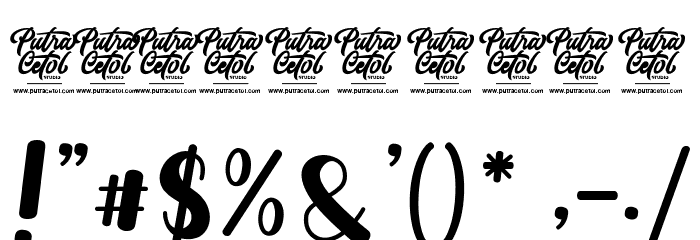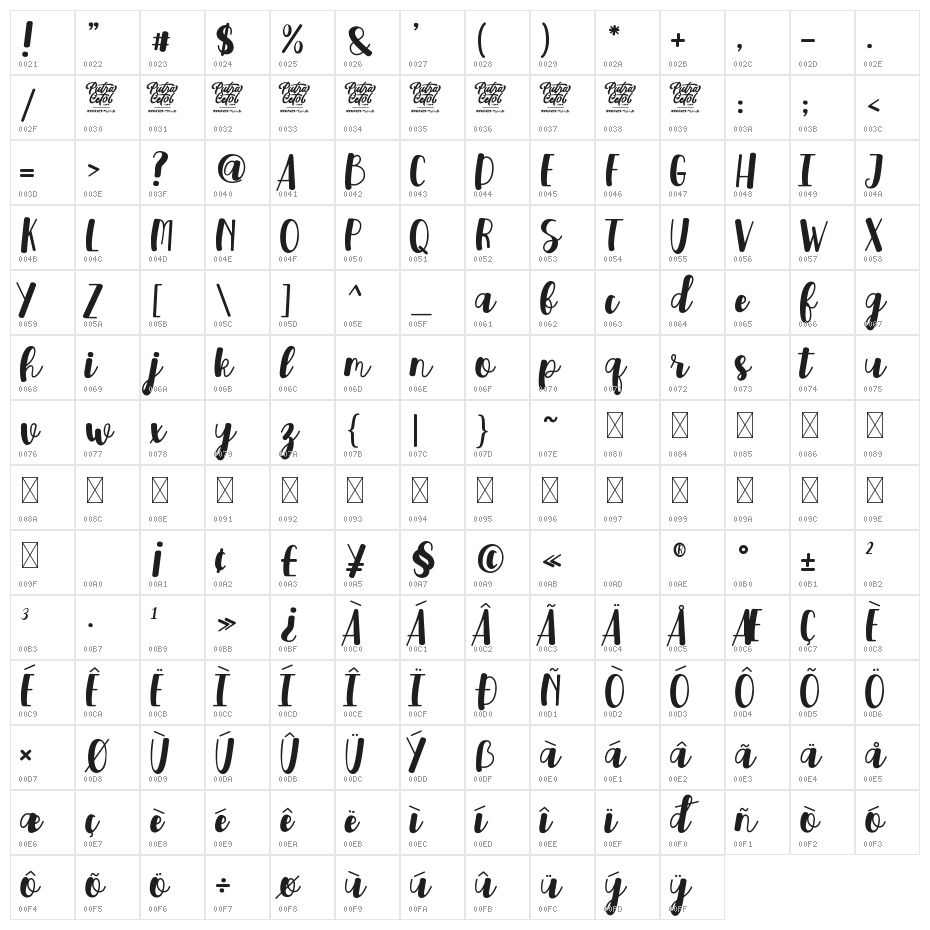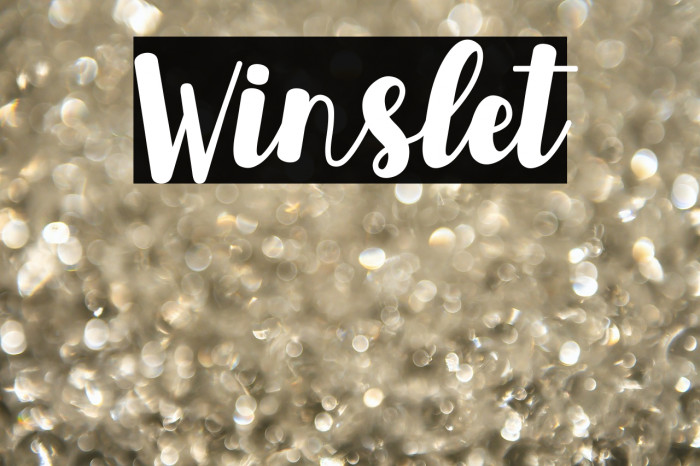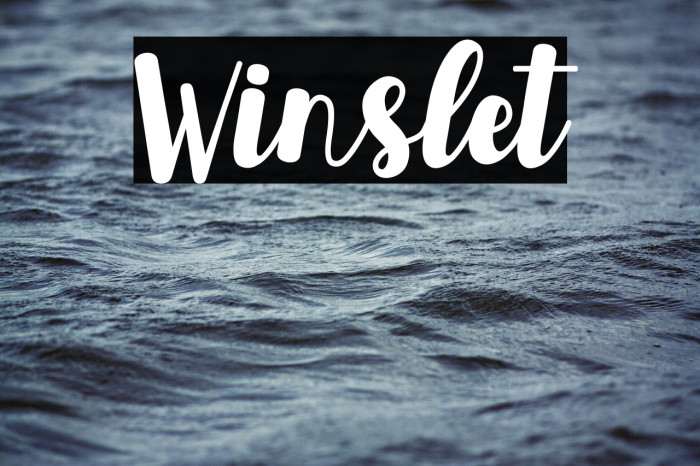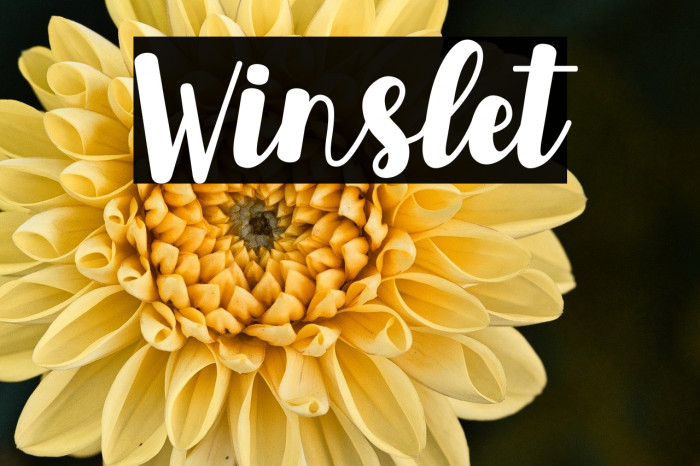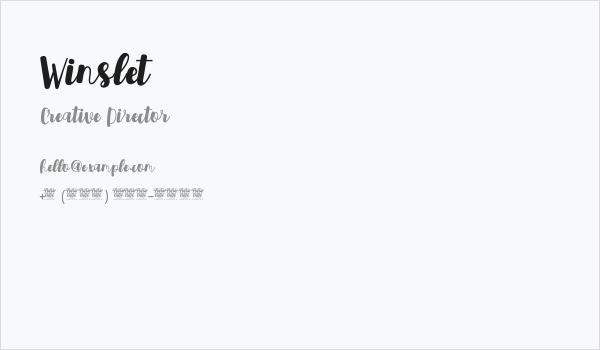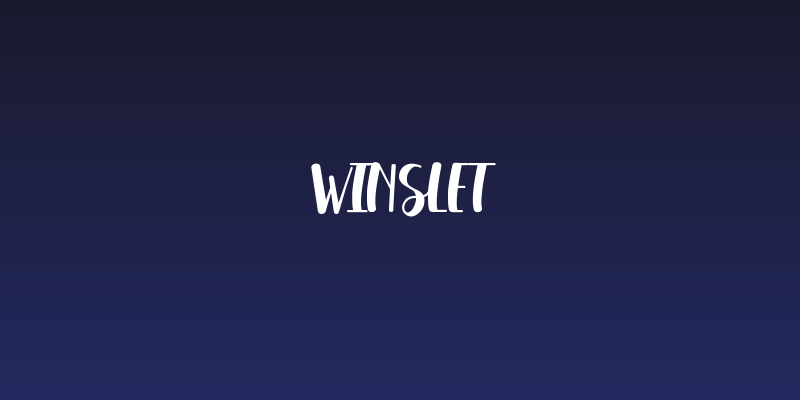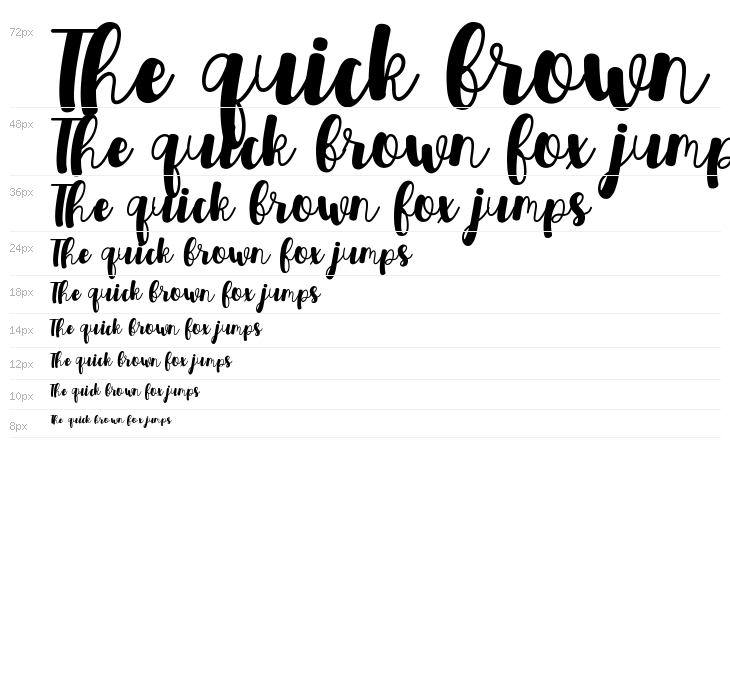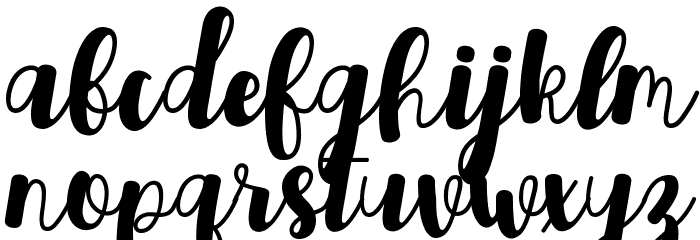
Winslet Font
Winslet Description
This font features a bold and expressive script style, characterized by its fluid and dynamic strokes. The uppercase letters exhibit a playful yet elegant design, with varying stroke widths that add a sense of movement and energy. The lowercase letters maintain a cohesive flow, enhancing readability while retaining a stylish flair. The numerals and special characters are crafted to complement the overall aesthetic, ensuring versatility across different uses. This font's unique personality makes it suitable for creative and artistic projects.